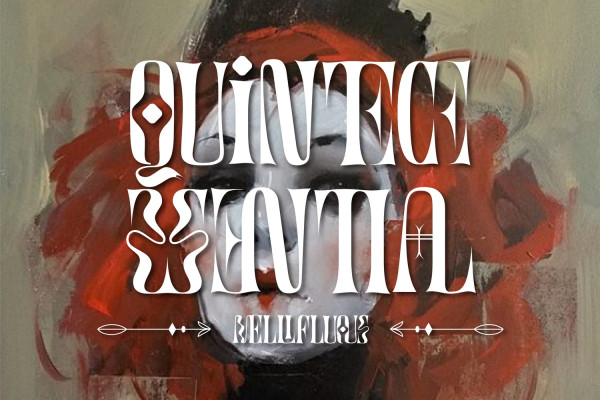
Artistic Condensed Font
Artistic Condensed Font is a condensed font, wavy display face. it was designed with a synthesis of the future and the past. While it carries sharper and futuristic lines than the future, it also incorporates the organic structure of the past. It’s perfect for logos, name cards, magazine layouts, invitations, headers, or even large-scale artwork. With its sharpness and simple elegance, Howard – Ultra Condensed Sans Serif will give your work a fresh and sophisticated look.
Artistic Condensed was built with OpenType features and includes 100 ligatures, alternate, numbers, punctuation, and it also supports other languages.